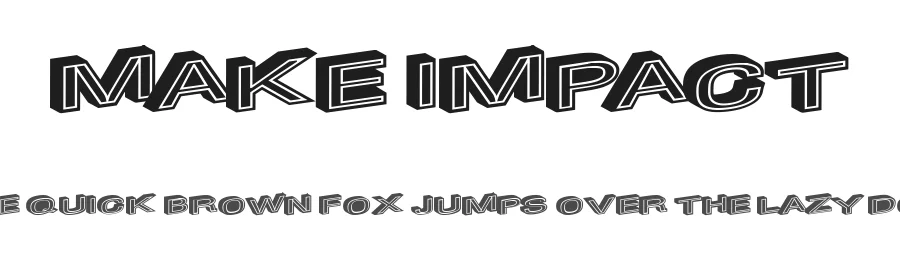
About WideThin Font
| Designer | Max Infeld |
WideThin Font is a decorative font that shines as a display or heading face. Pair it with a clean sans-serif or serif font for body text β the contrast creates a clear hierarchy while the two styles stay balanced and easy to read.